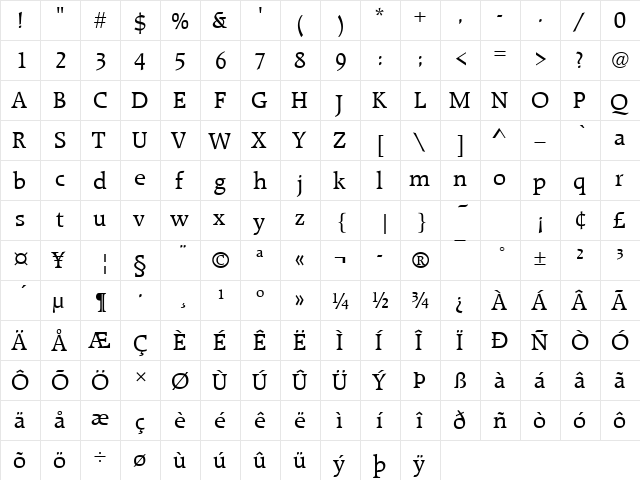
RaleighDMed Regular
Design Context for RaleighDMed Typeface
RaleighDMed offers clean, dependable letterforms without strong stylistic allegiance, making it a practical choice for designers who need flexibility.